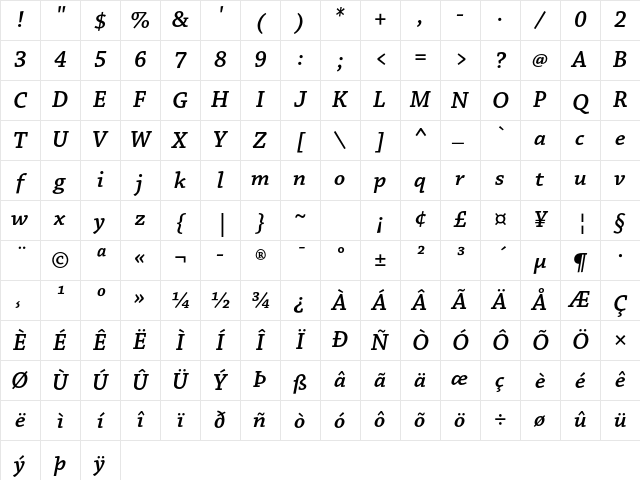
Chaparral Pro Semibold Italic Caption
Style: Semibold Italic Caption
Designer: Carol Twombly
Design Context for Chaparral Pro
Chaparral Pro is a composed and adaptable typeface that performs quietly and consistently across a wide range of design contexts. The slanted form adds forward momentum and visual energy. Its bold stroke weight gives it real presence on the page.